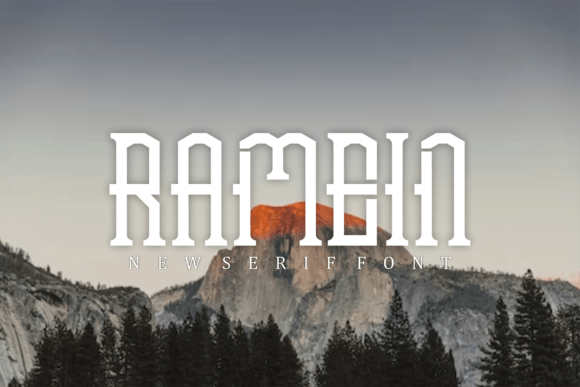
In the realm of typography, where letters dance and words ignite, there lies a font that embodies elegance and grace - Ramein. This exquisite serif font is a masterpiece, lovingly crafted to enchant your creative endeavors.
With its delicate curves and refined lines, Ramein captures the essence of timeless beauty. Each character is a work of art, meticulously designed to convey emotion and captivate the eye. Whether you're a seasoned designer or a creative enthusiast, Ramein will elevate your projects to new heights.
Unleash your imagination and explore the endless possibilities that await with Ramein. Craft stunning signatures that exude sophistication, design stationery that leaves a lasting impression, and create logos that radiate professionalism. Ramein's versatility extends to wedding invitations, typography quotes that inspire, and magazine covers that demand attention.
Immerse yourself in the world of Ramein and discover a font that transcends the ordinary. Let your creativity flourish as you design website headers that captivate visitors, create clothing lines that embody style, and develop branding and packaging designs that resonate with your audience.
Ramein is more than just a font; it's an invitation to embark on a creative journey. Its timeless appeal and versatility will transform your projects into works of art. Embrace the allure of Ramein and unlock a world of endless possibilities.